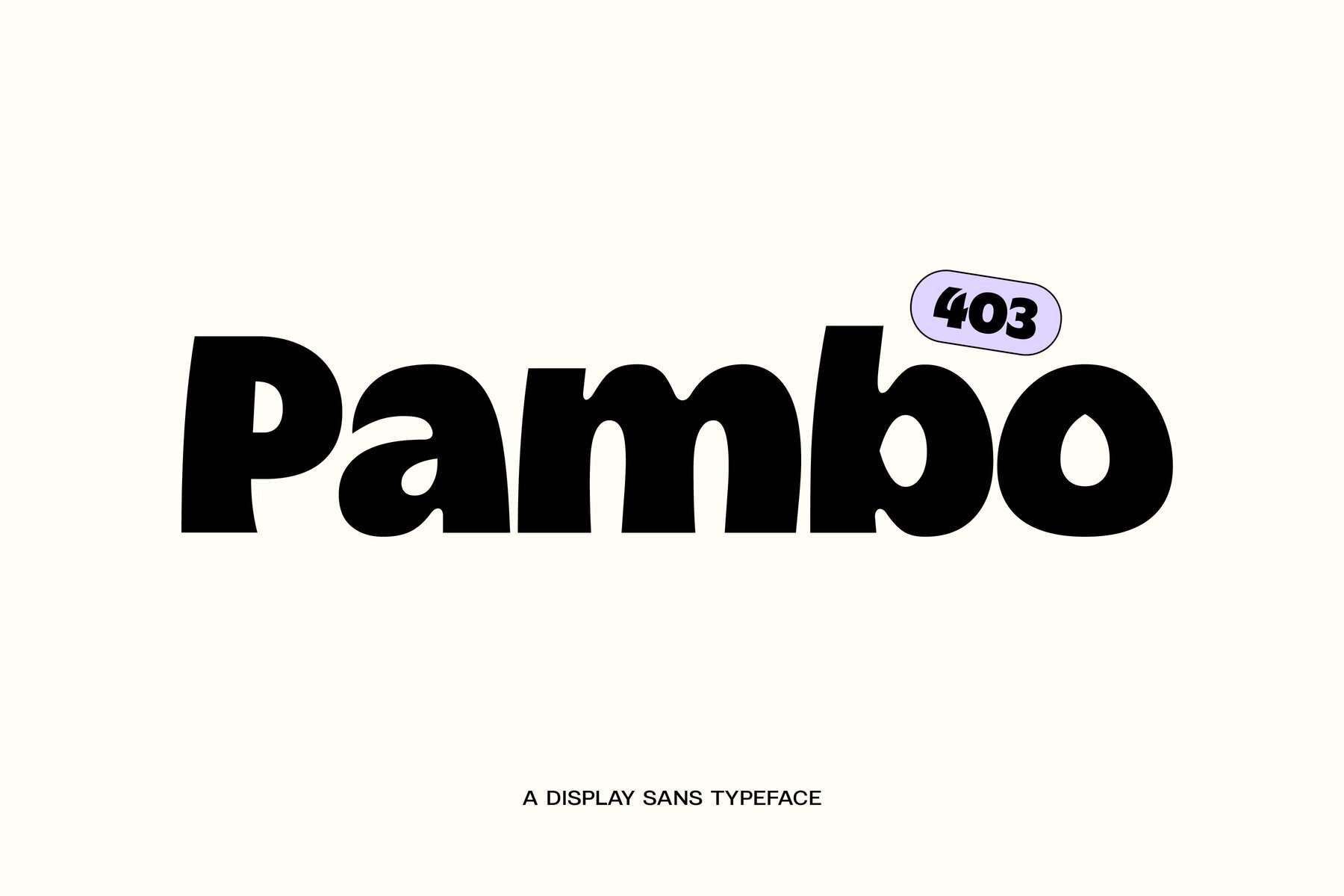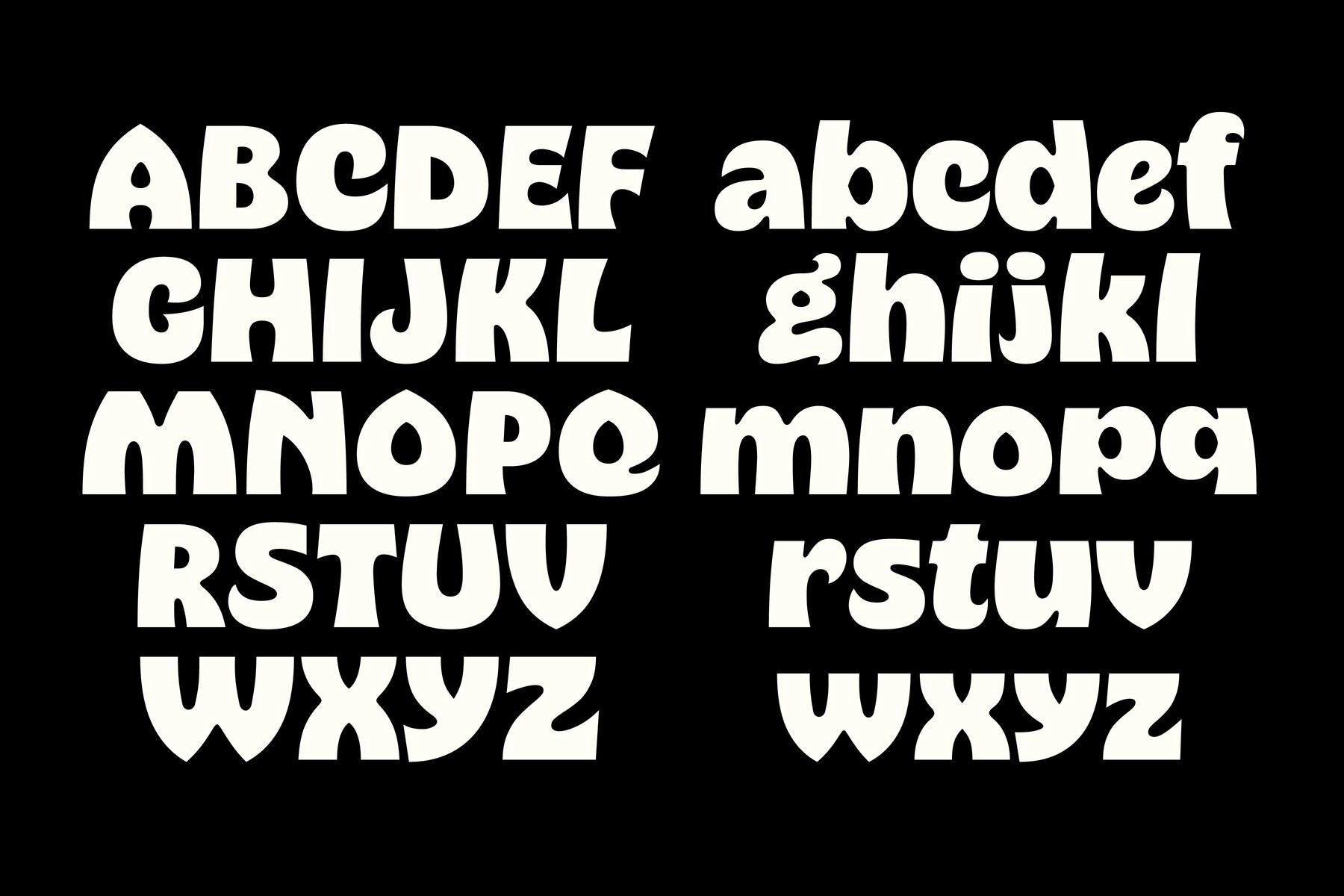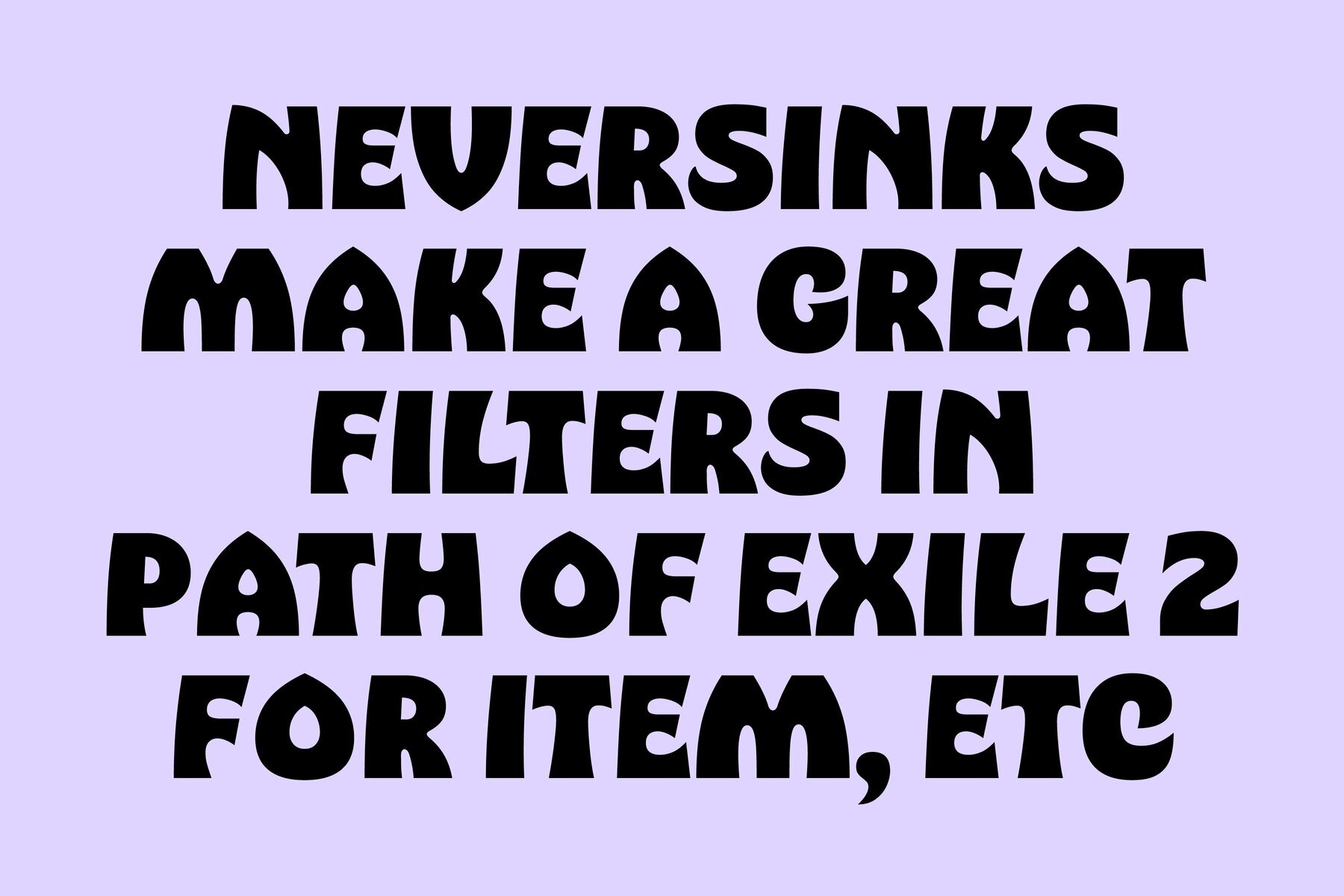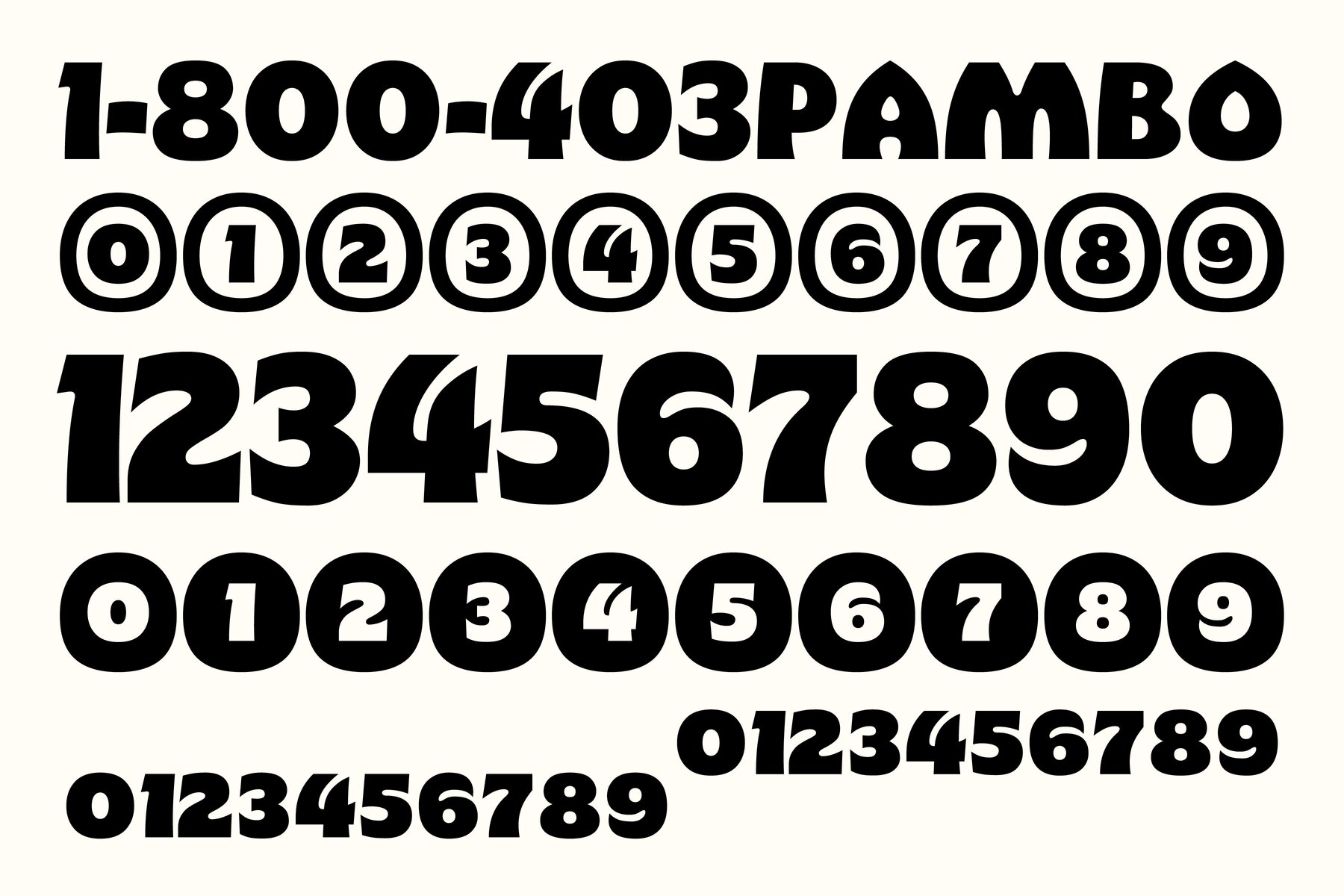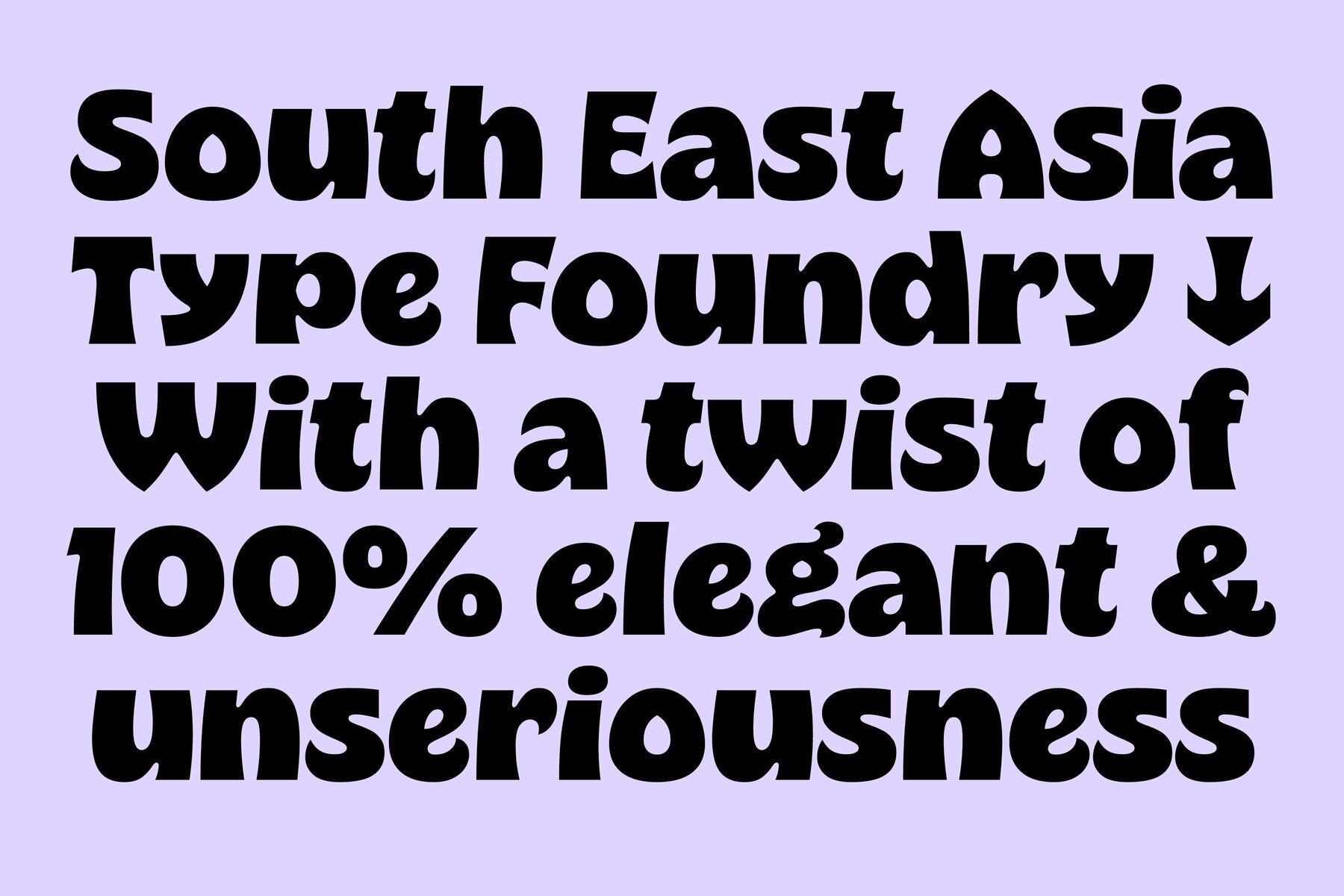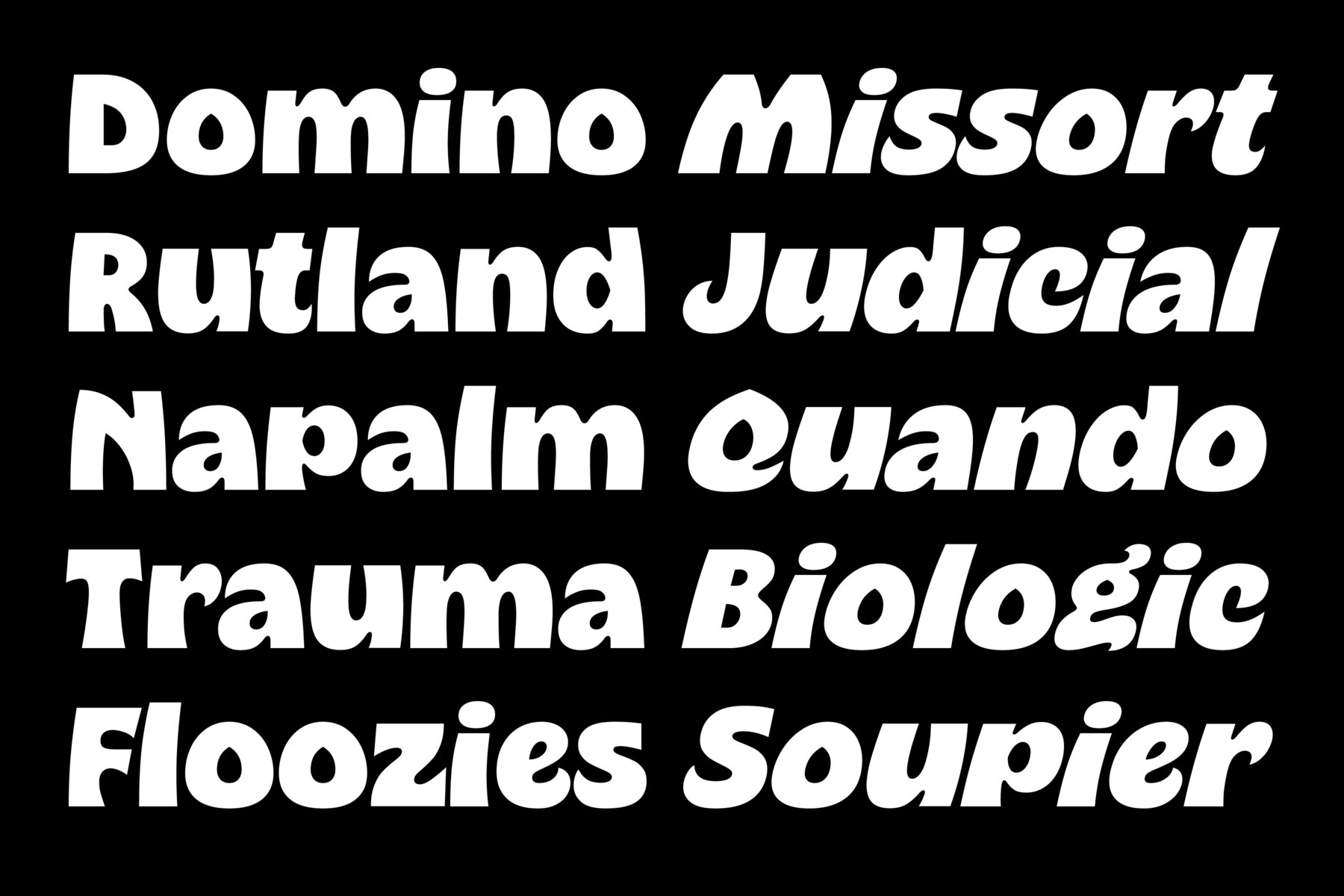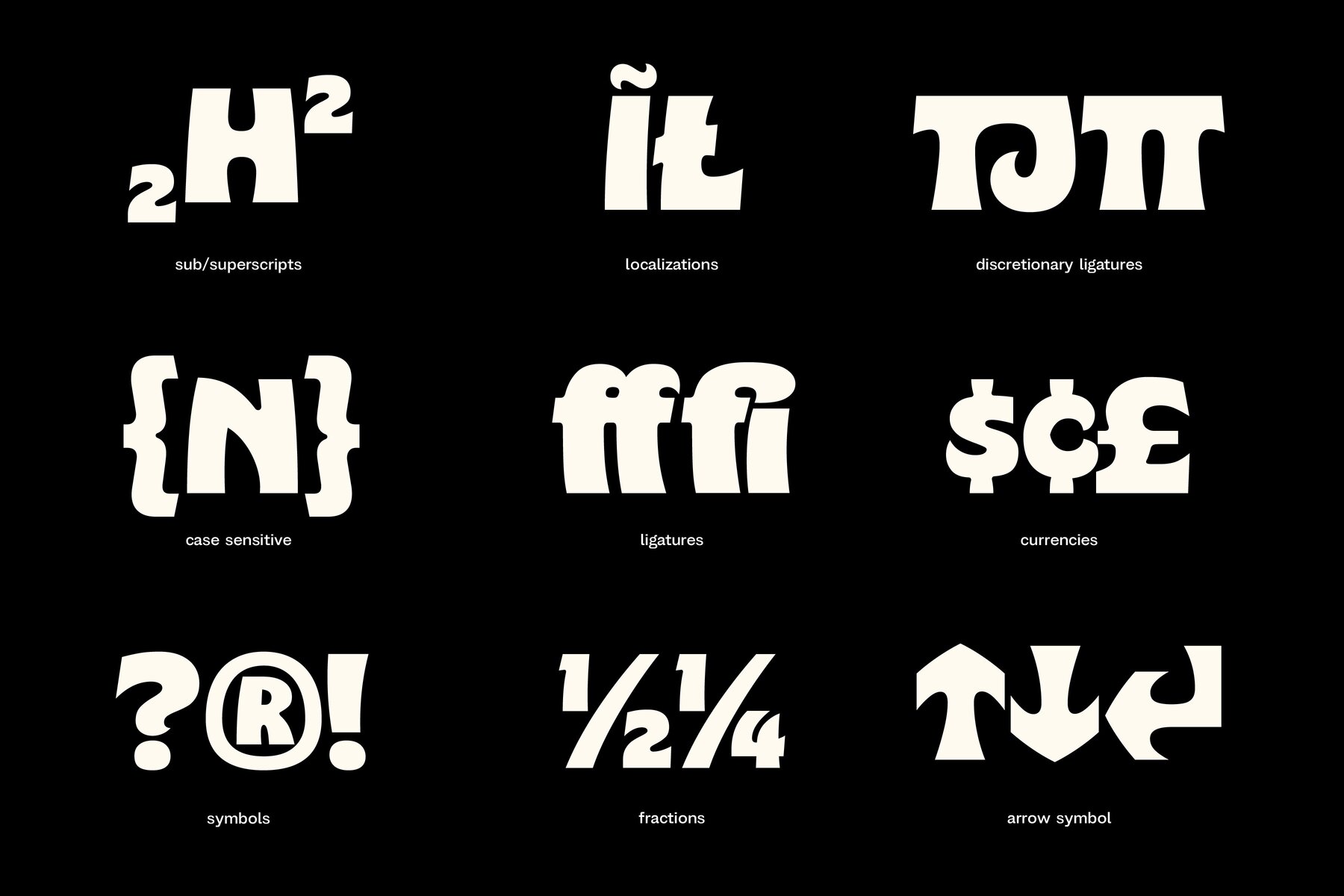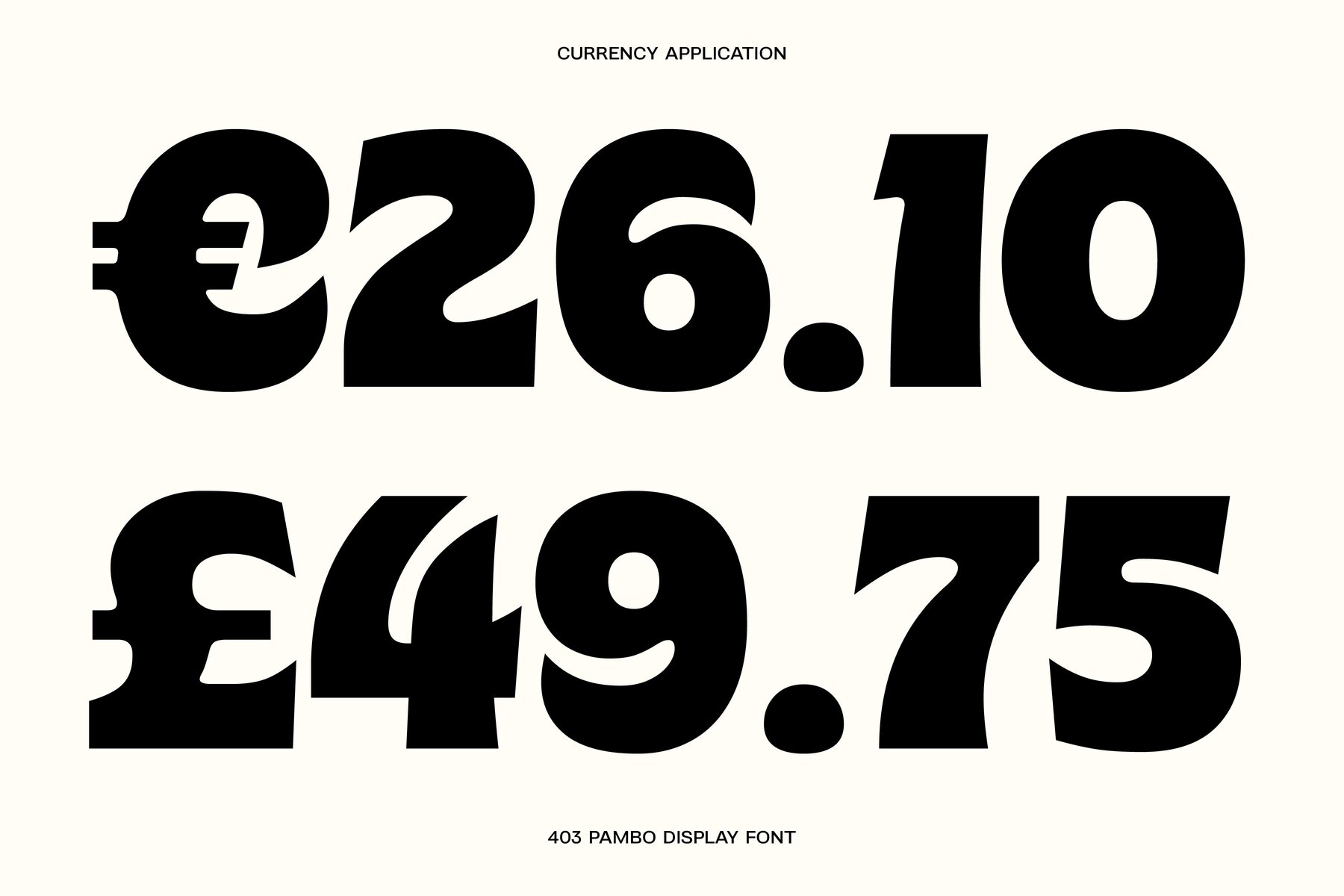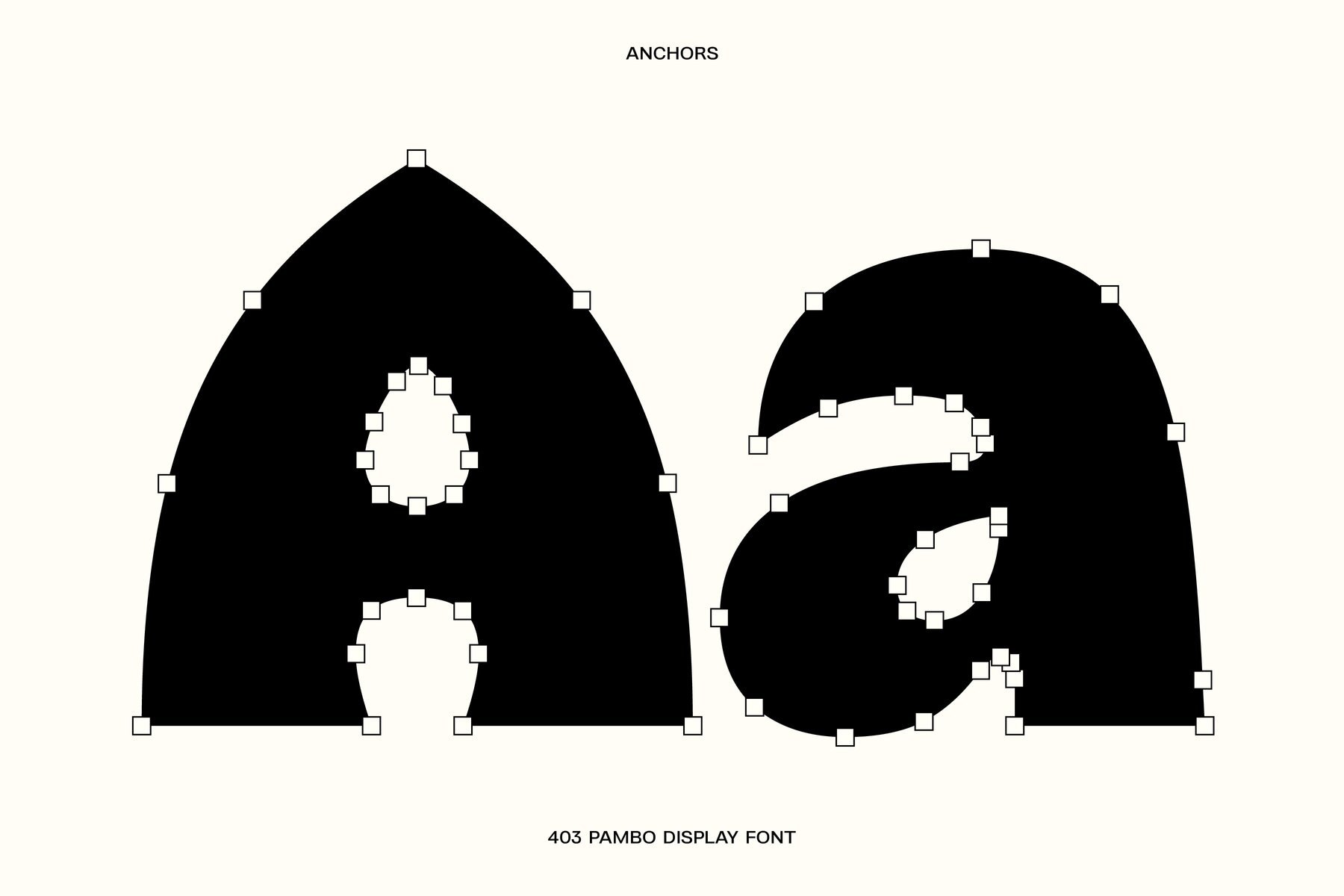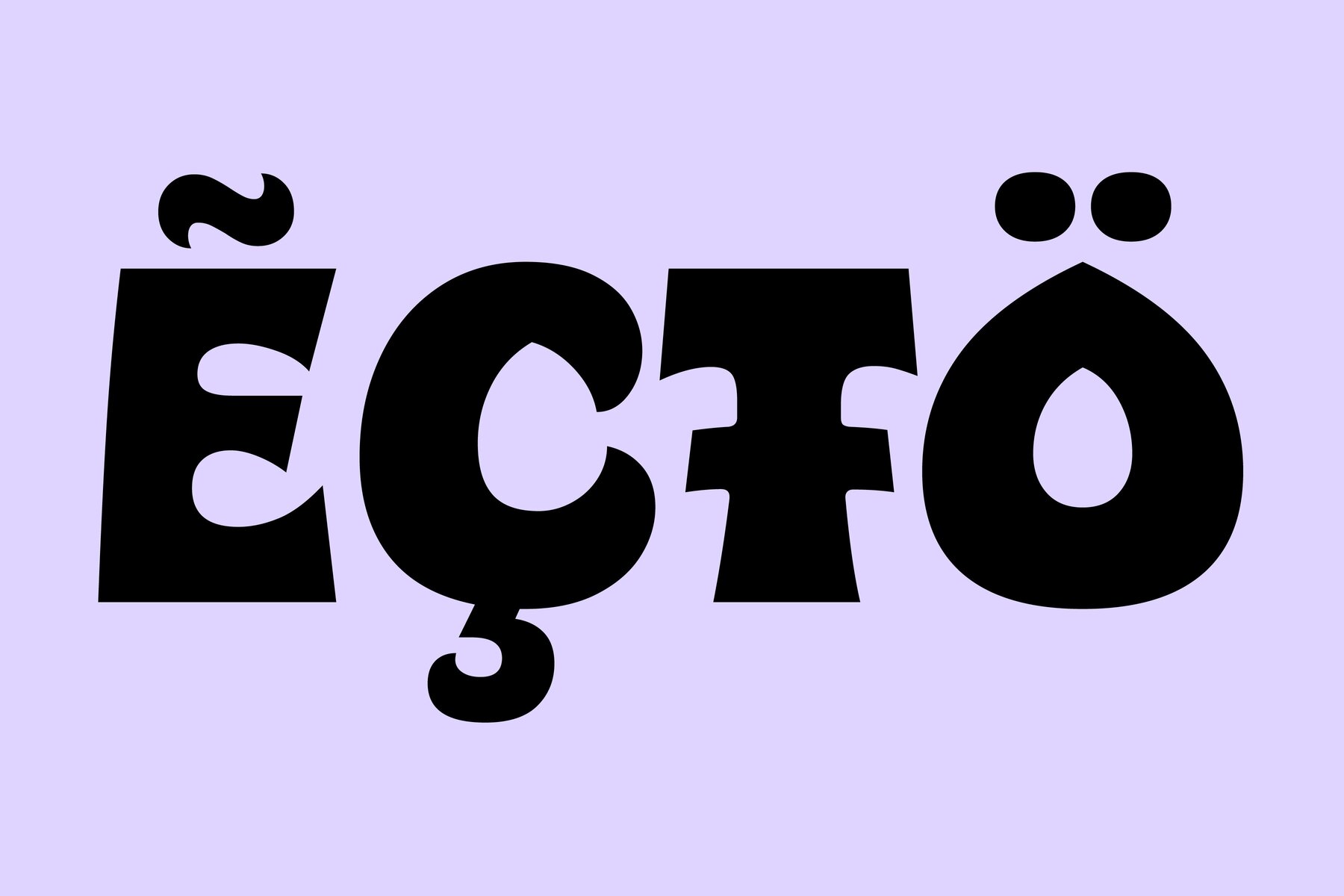
403 Pambo Font
403 Pambo captures the essence of the groovy 1960s and 1970s with its bold and lively retro style. This font is characterized by exaggerated curves and eccentric shapes, radiating a joyful and approachable attitude. Its unique design is perfectly suited for eye-catching graphics, including posters, record covers, and retro-themed branding.
As a headline font, 403 Pambo's highly stylized form is ideal for ornamental and display purposes, adding charm and vitality to your projects. Its whimsical and nostalgic feel ensures it makes a powerful visual impact, making it perfect for designs that seek to evoke a spirited and playful atmosphere.